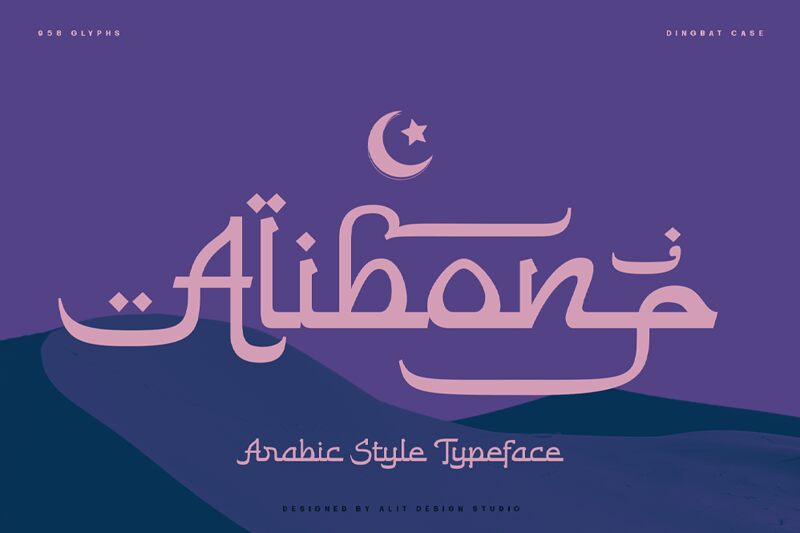
Alibon font by Alit Design brings an Arabic-inspired font with ornate and flowing design. Crafted with artistic flair in mind, the font features elegant conceptual letters and overall appearance. The exotic strokes mimic the Middle Eastern style and cultural graphic elements. At the same time, they carry a modern twist for a more functional and readable writing in English. Download this decorative foreign font absolutely for free!
In artistic projects that are looking for a foreign touch, Alibon is capable of delivering just that. The wide range of possible uses include banners, posters, stationery, social media, blogs, and artistic covers. Further uses include packaging designs especially perfume products, beverage labels, short book cover texts, magazines, signatures, and billboards among others. Let us not forget other branding aspects that include logos, websites, and mobile applications.